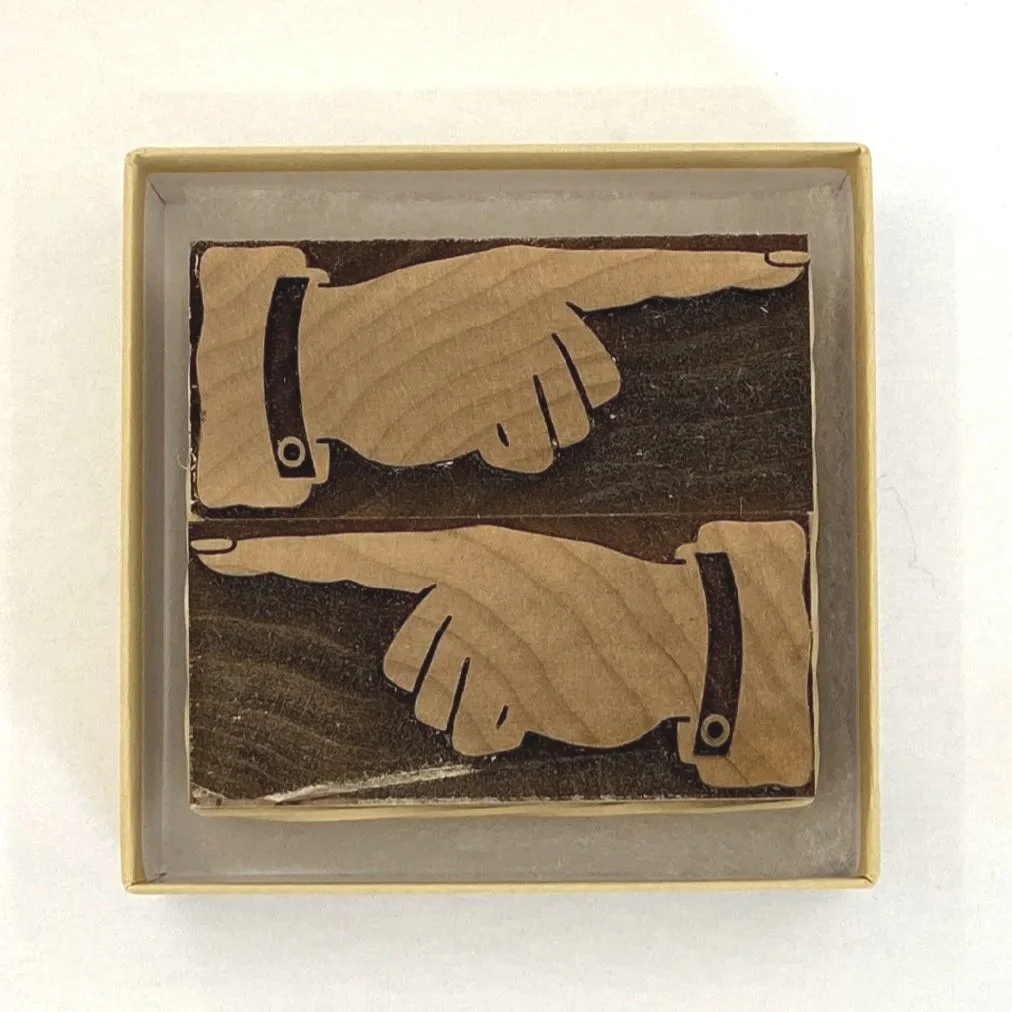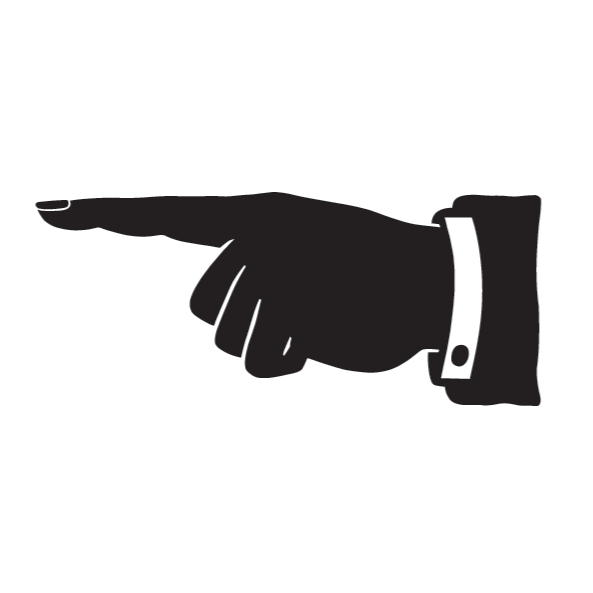
Solid manicules show up in almost every specimen book, but I liked the Morgan & Wilcox version best. Its proportions feel balanced, and the little coat-cuff detail gives it charm. Bold and timeless, it’s the classic pointing hand.